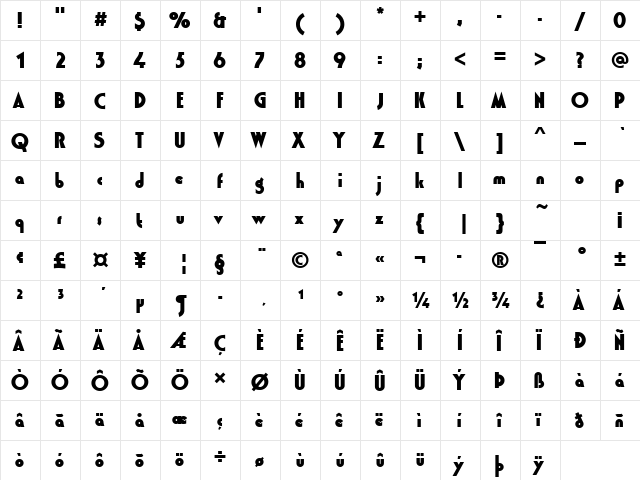
WashingtonDBla Regular
Design Context for WashingtonDBla Typeface
WashingtonDBla takes a measured approach to typography — its balanced proportions and neutral character make it a reliable workhorse for both digital and print work.